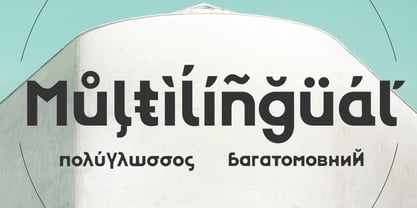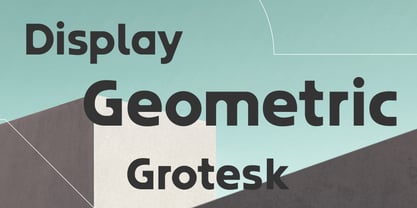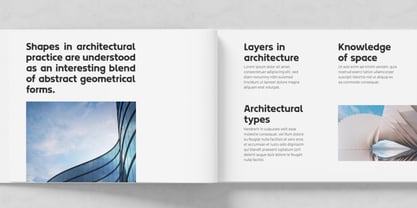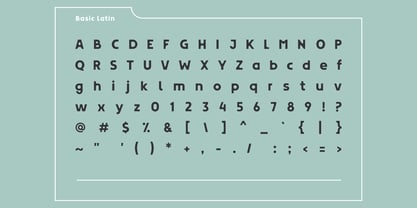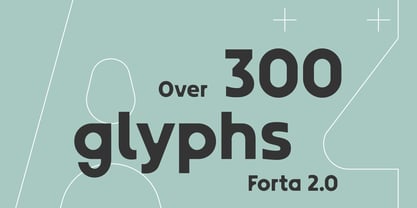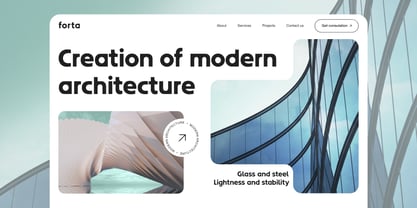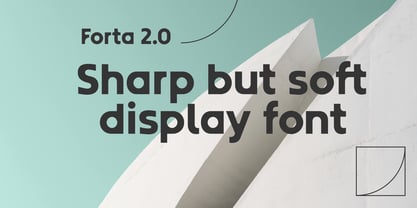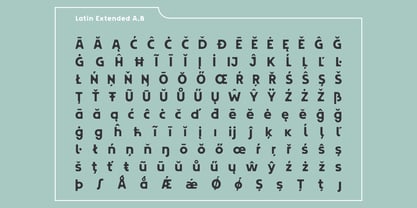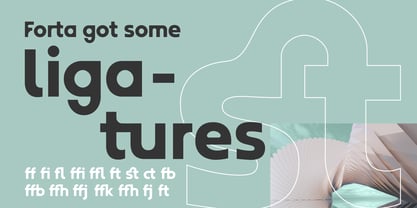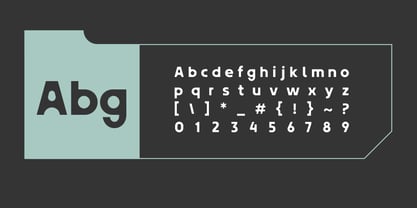
Forta 2.0
Die Schriftfamilie Forta 2.0 wurde von Andrzej Wróż entworfen und von Creative Hands veröffentlicht. Forta 2.0 enthält 1 Stile. Mehr über diese Familie
Forta 2.0 is a modern display typeface, perfect for headlines, short sentences, logos, web design, posters etc. Forta is perfectly balanced between modern styling and readability. It combines sharp edges and soft curves into unique, visually appealing shapes. Forta supports ligatures and some characters contain alternative style. With over 600 glyphs, Forta supports more than 25 languages, including Greek and Cyrillic, making it a versatile choice for diverse design applications.
Designer: Andrzej Wróż